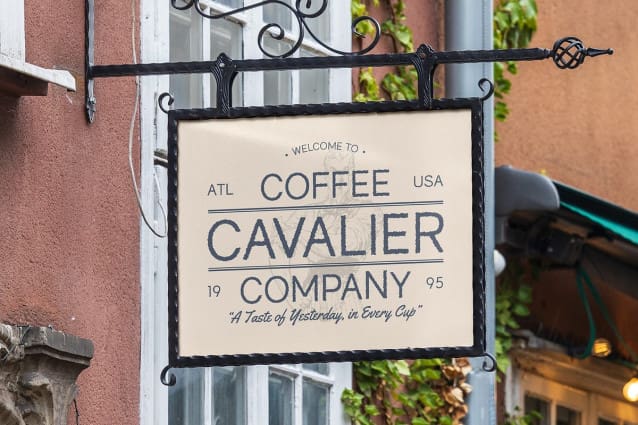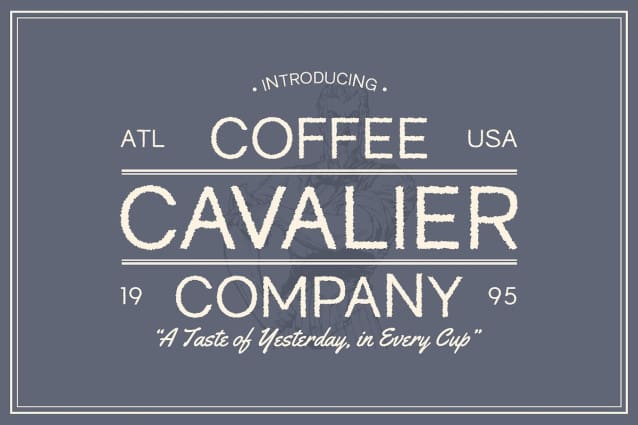
Napzer Rough Font
Napzer Rough Font is a modern sans serif font characterized by its clean, minimalist, and geometric design, expertly enhanced with a distinctive rough texture. This unique combination strikes a perfect balance between sophistication and ruggedness, making it an ideal choice for contemporary branding and design projects that seek to stand out in an increasingly crowded visual landscape.
Visual Interest with Readability The font features sharp lines and a geometric structure that create a striking visual impact while maintaining excellent readability. The added rough texture introduces an element of intrigue, enhancing the font’s overall character and making it visually compelling. This ensures that, whether you’re crafting eye-catching headlines or detailed body text, Napzer Rough delivers clarity without sacrificing style. Its boldness and unique finish make it particularly suitable for applications where clarity is paramount, yet a dynamic aesthetic is desired.
Versatile Applications for Contemporary Design Napzer Rough excels in various design contexts, from branding and advertising to packaging and digital media. Its modern appearance lends itself well to projects that aim to convey a refined aesthetic, while its ruggedness adds an unexpected twist. This font is perfect for creating memorable logos, impactful posters, and captivating social media graphics.